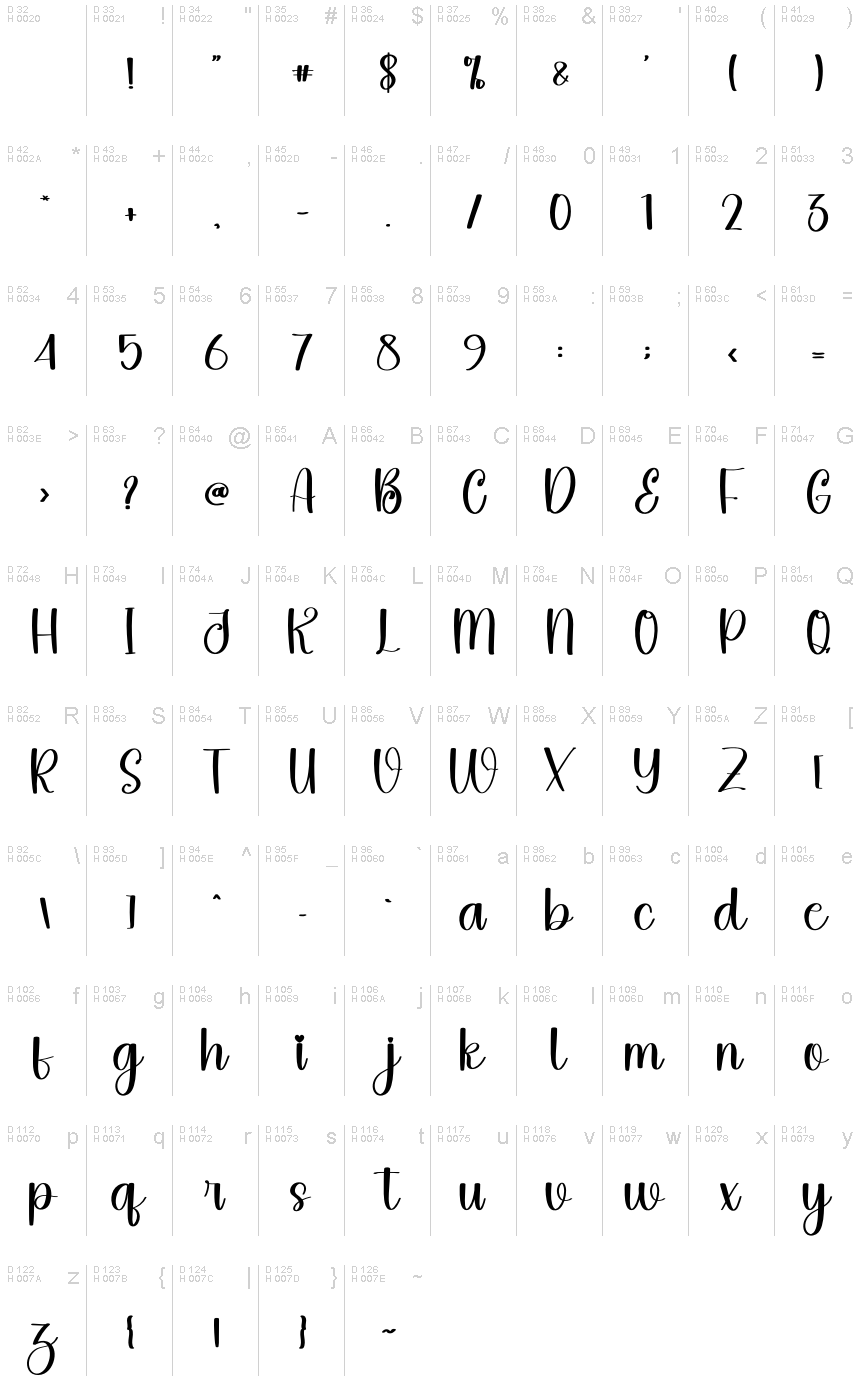
Bouncing
Bouncing, a captivating handwritten font crafted by FreshtypeINK, exudes a playful and whimsical charm. Its fluid strokes and organic shapes create a sense of movement and energy, evoking a carefree and lively atmosphere. The font's distinctive character blends a touch of spontaneity with a refined aesthetic, making it a versatile choice for a wide range of design projects.
The Bouncing font's striking visual appeal makes it an excellent selection for branding, packaging, and editorial design. Its playful nature lends itself beautifully to children's illustrations, greeting cards, and other applications where a sense of joy and lightheartedness is desired. Additionally, the font's adaptability allows it to be seamlessly integrated into modern web and digital designs, adding a unique and memorable touch to various online platforms.